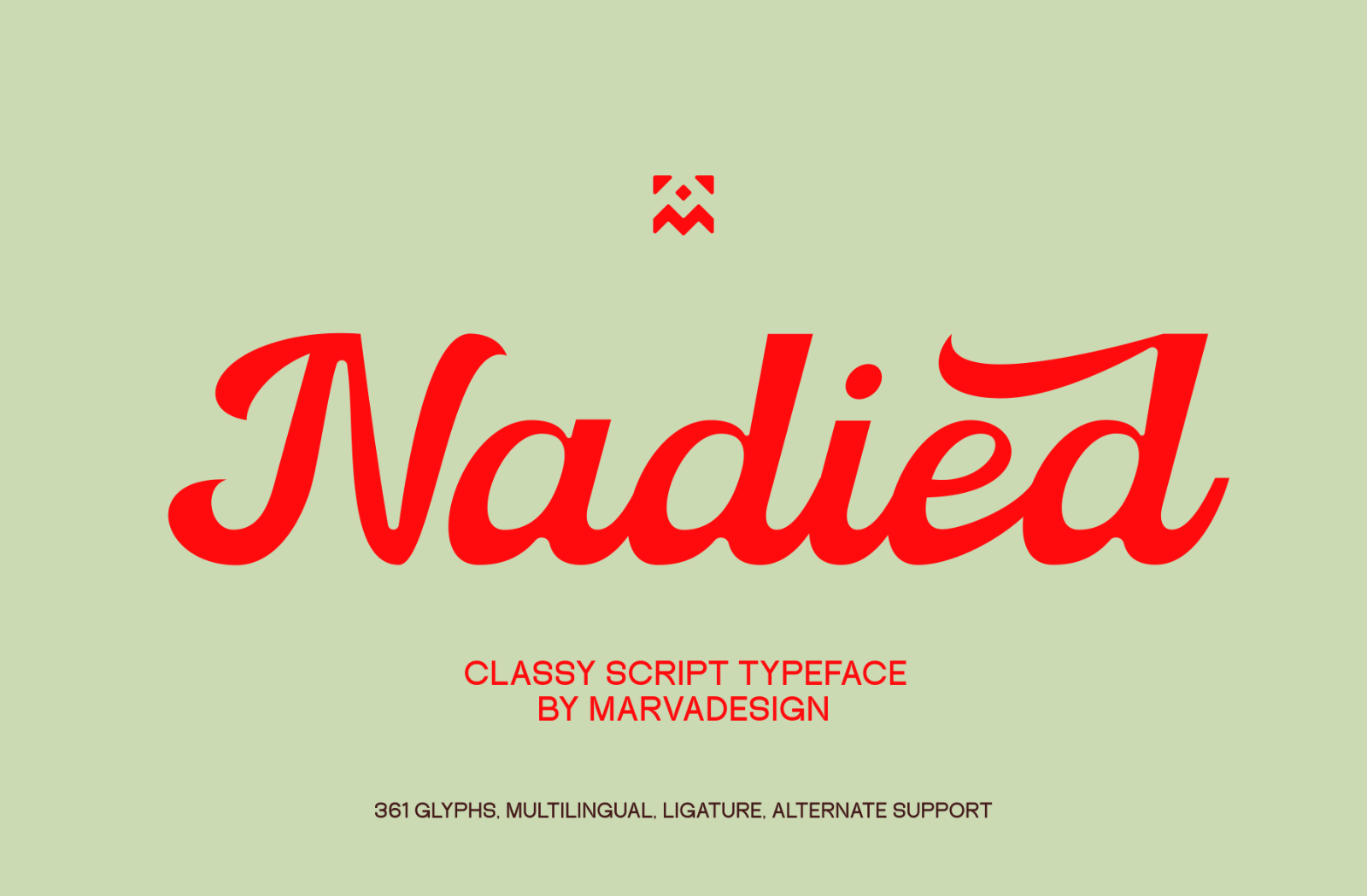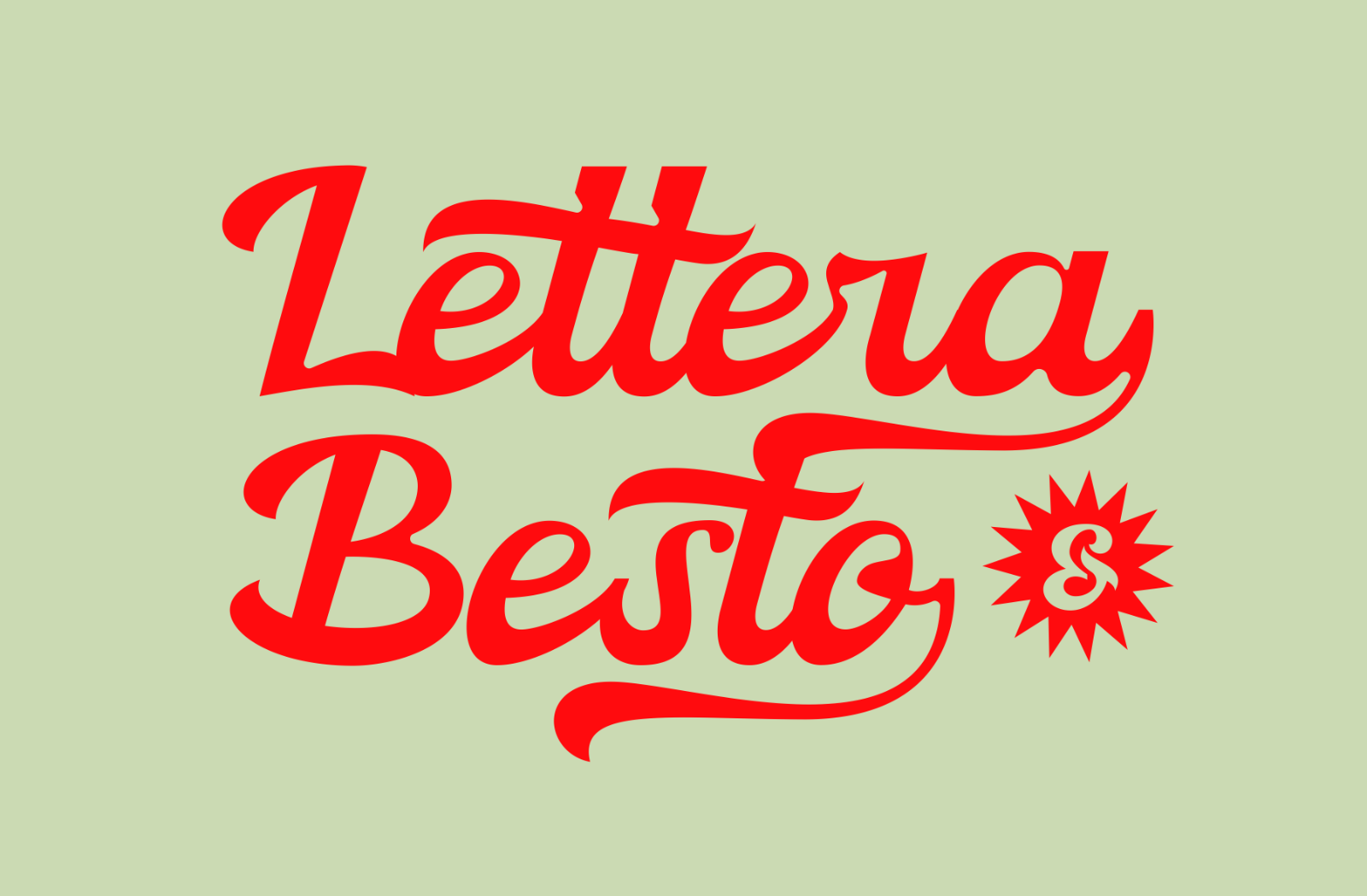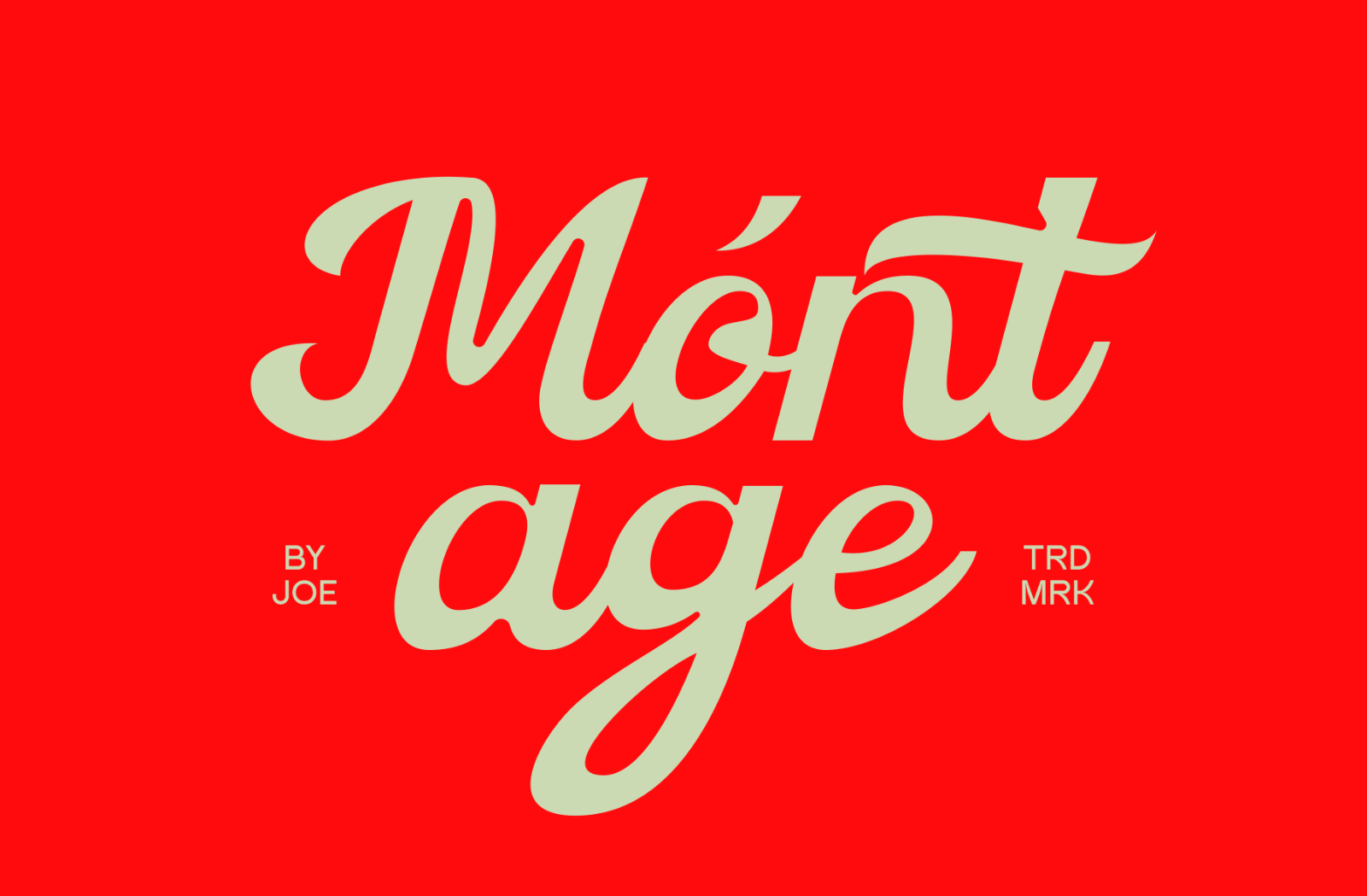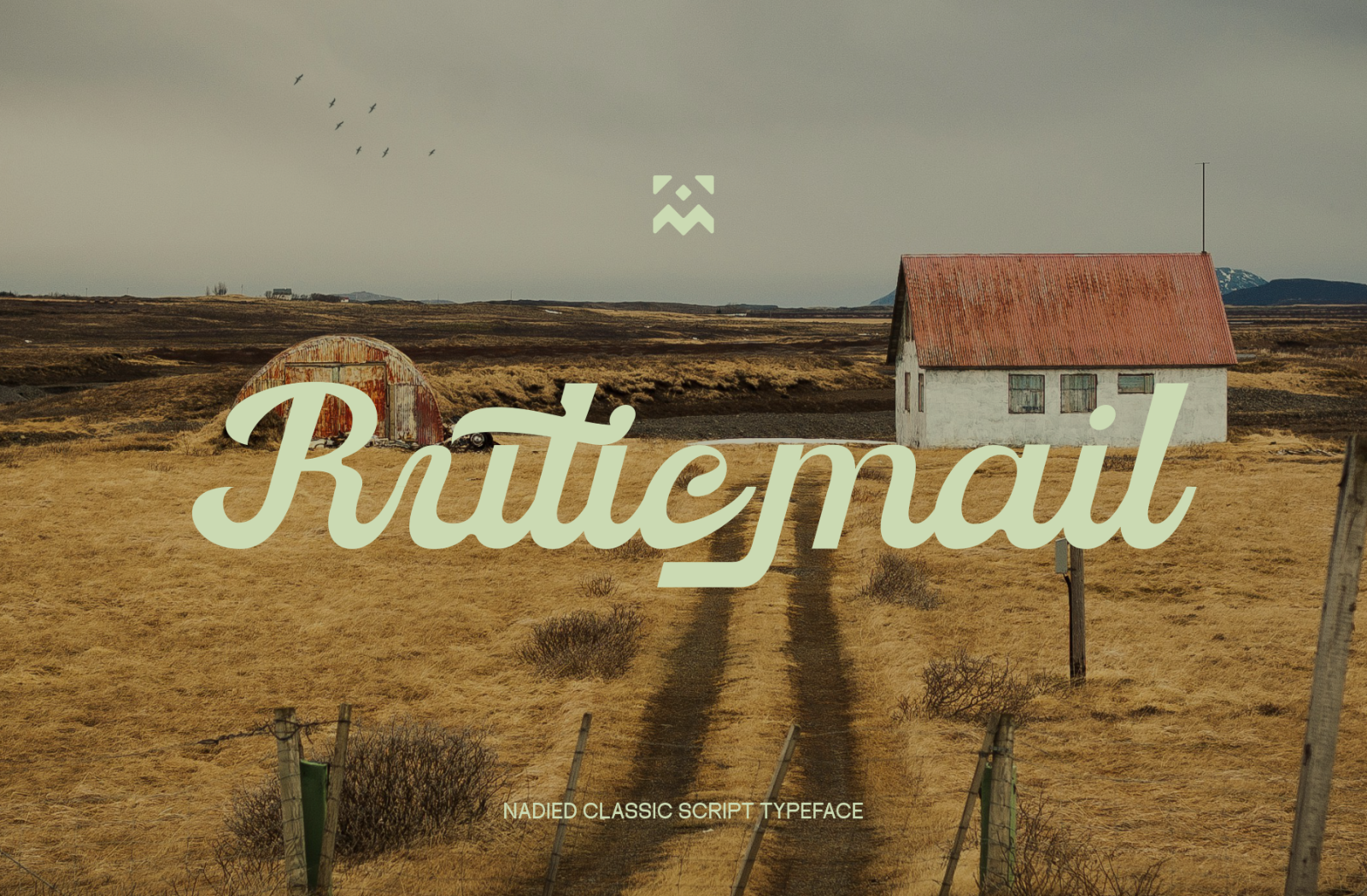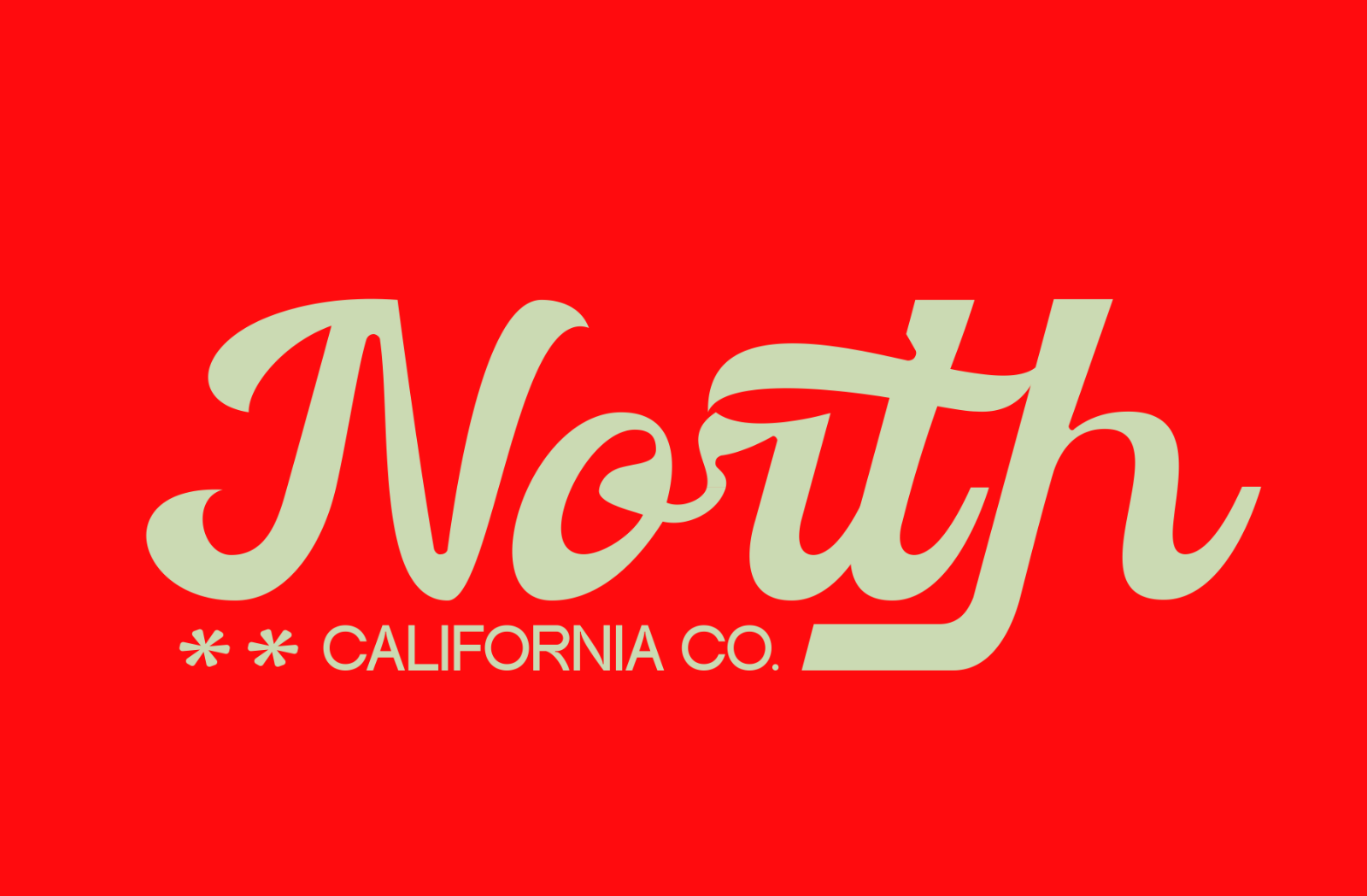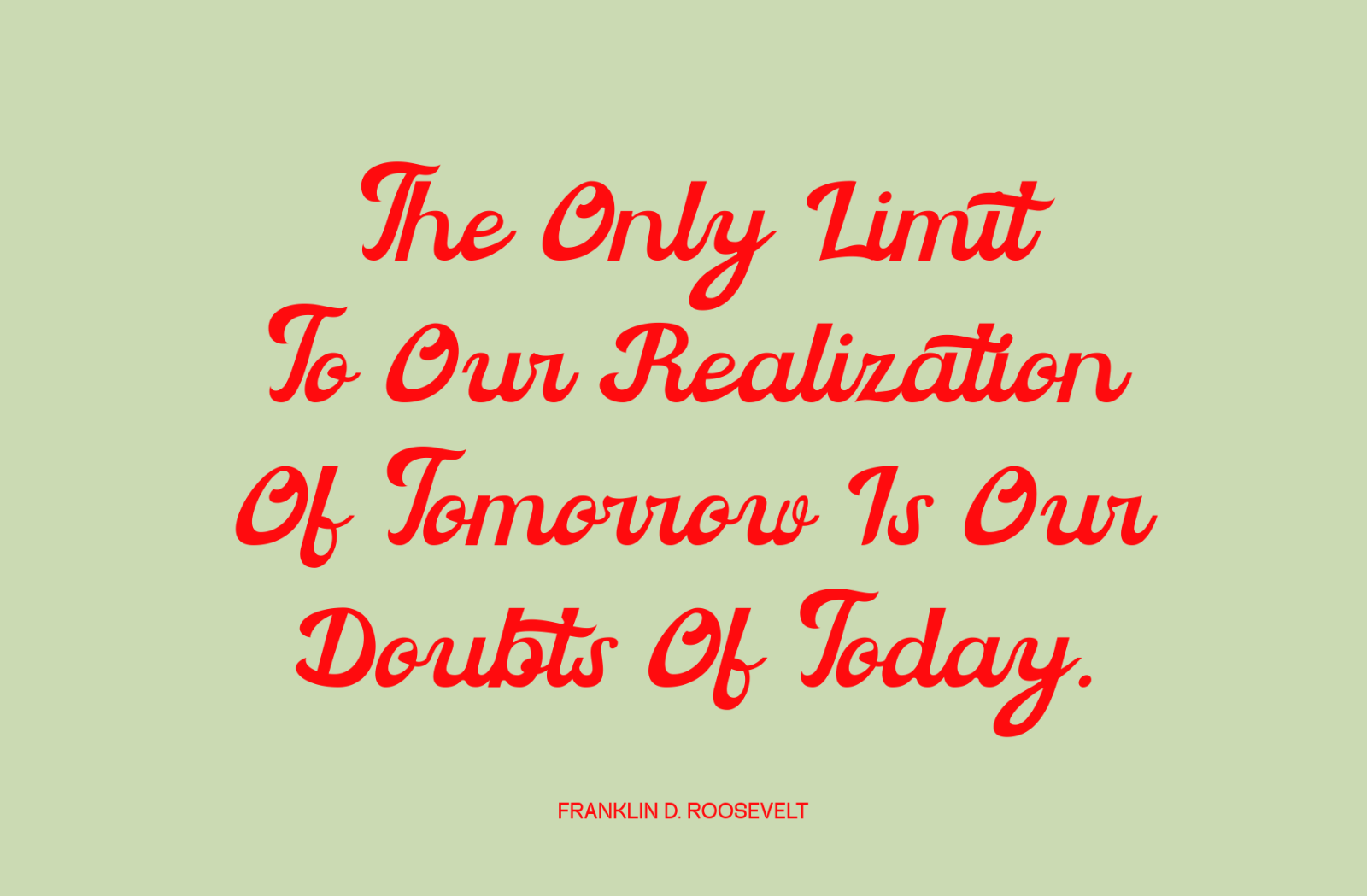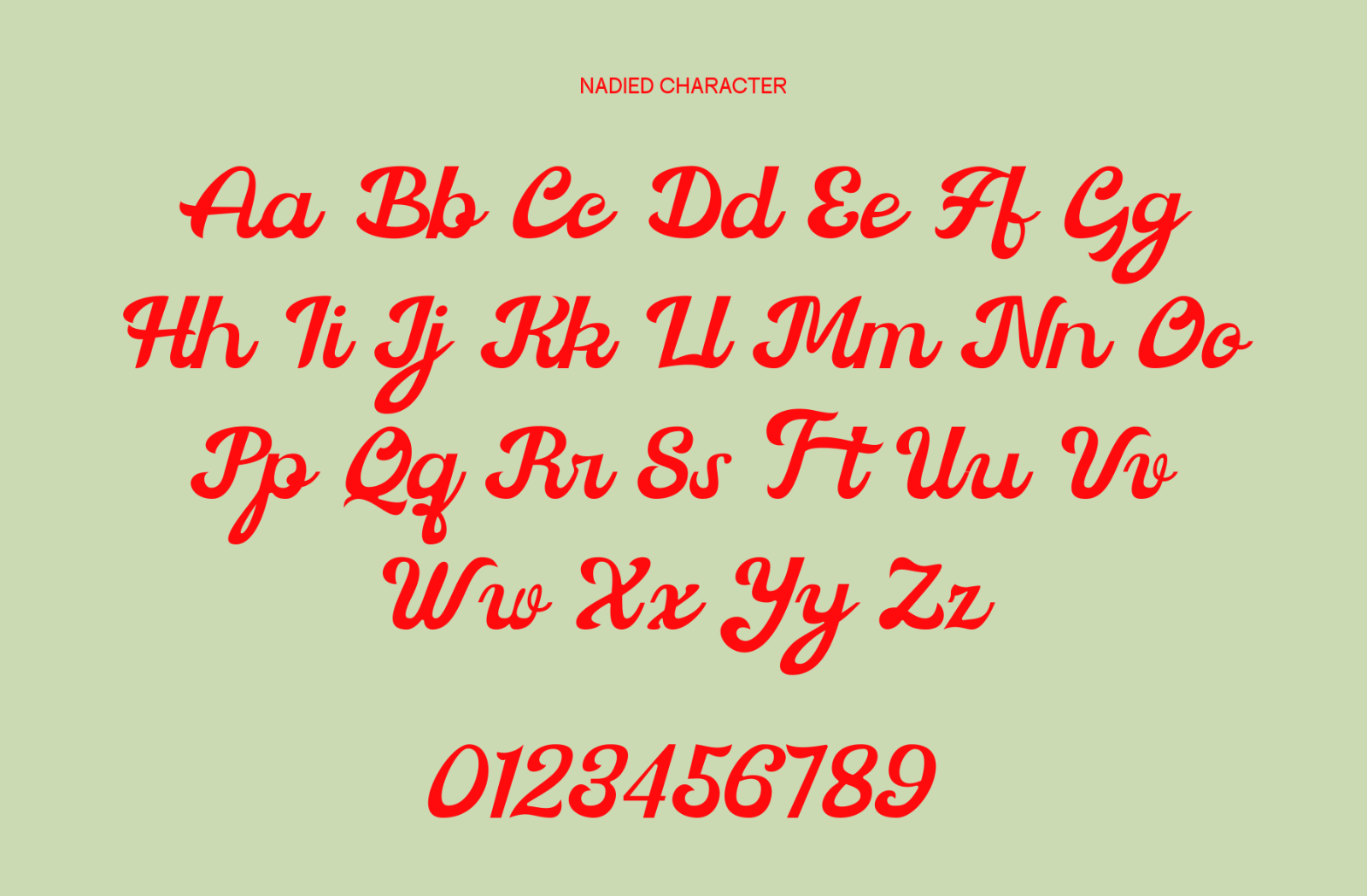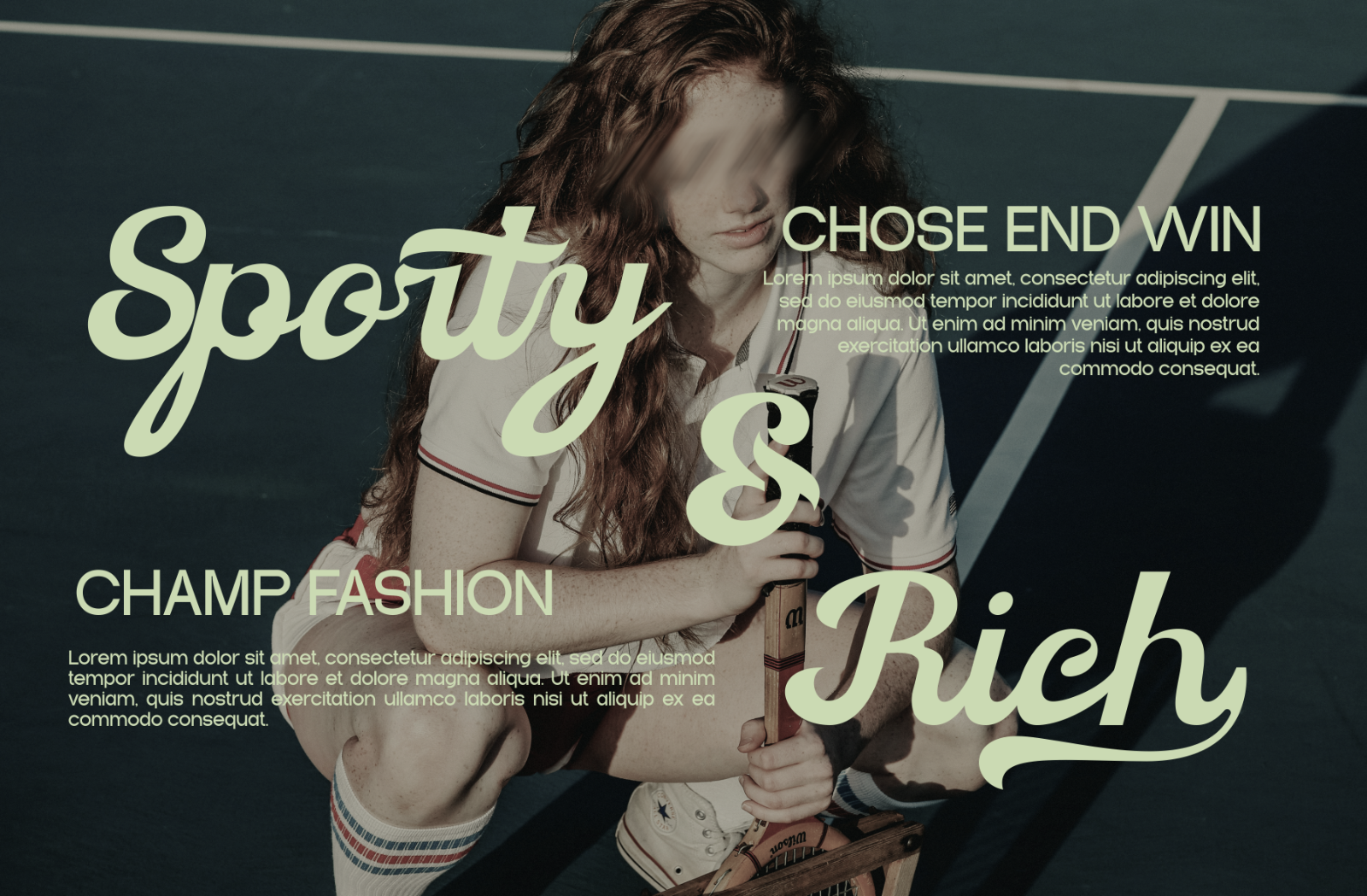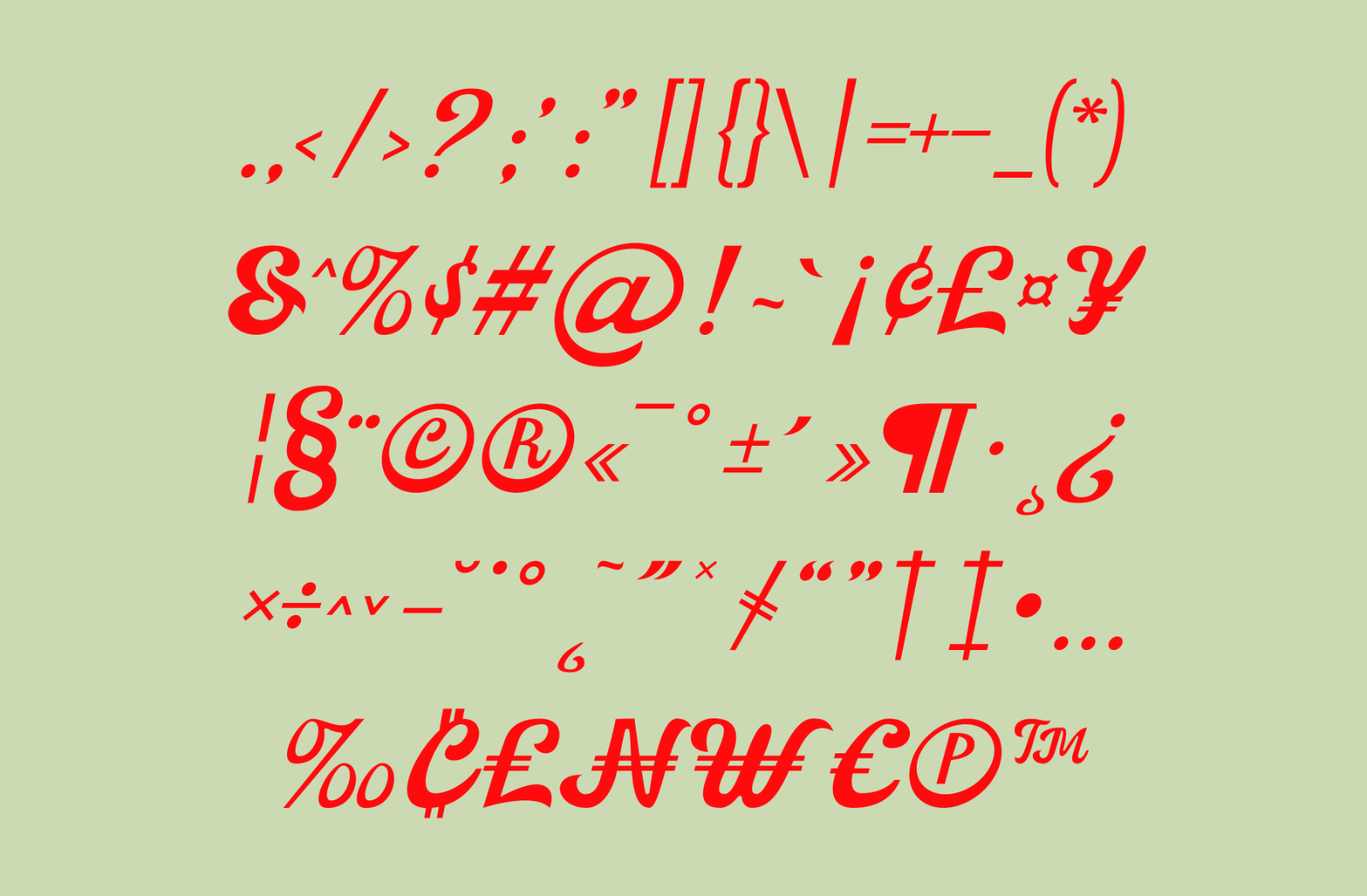
Introducing Nadied is a Script & Handwritten font that embodies a blend of elegance and classic appeal. Its characters are crafted with a distinct sense of sophistication, making it suitable for a wide range of design applications. Each letterform has its own unique touch, which adds a personalized feel to the overall design. The font also offers a rich collection of ligatures and stylistic alternates, further enhancing its versatility and charm. These features allow designers to create diverse and creative layouts while maintaining a refined, polished look. Nadied is perfect for projects that demand an elegant, timeless aesthetic.